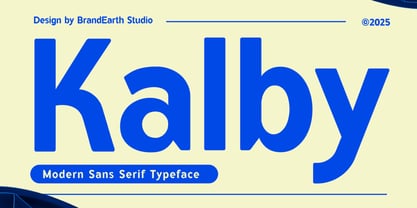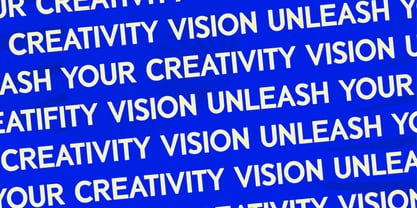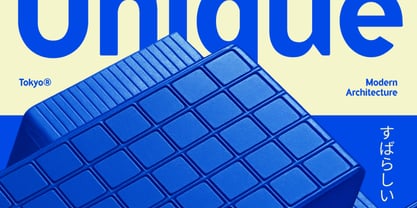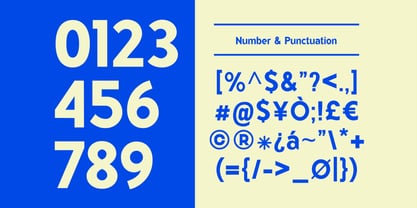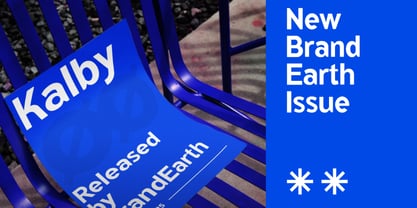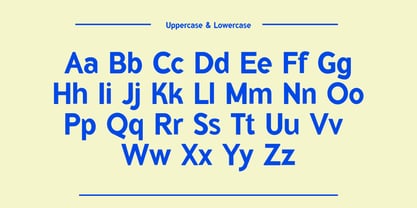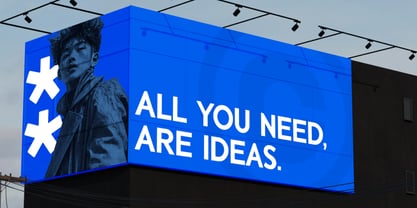
Kalby
by Brandearth
The Kalby Font Family was designed by Moch Rasjid Wiyono and published by Brandearth. Kalby contains 1 styles. More about this family
Kalby is a modern bold sans serif typeface designed with smooth curves, confident structure, and clean geometric balance. Its rounded terminals and friendly proportions create a contemporary look that feels both professional and approachable. Built for versatility, Kalby delivers strong visual presence in headlines while maintaining excellent readability across various design applications. Kalby is highly relevant for corporate branding, startup identities, website headers, marketing materials, product packaging, editorial layouts, UI/UX design, and social media campaigns. Its clean and bold structure makes it ideal for businesses that want to communicate clarity, confidence, and modern professionalism while maintaining a friendly and approachable tone.
Designers: Moch Rasjid Wiyono
Foundry: Brandearth